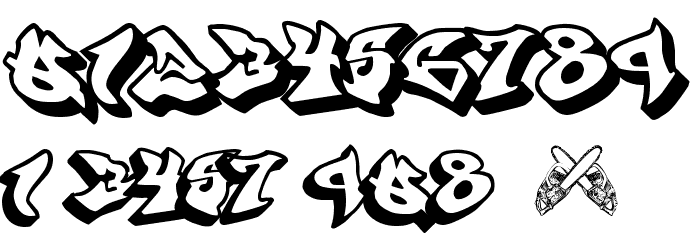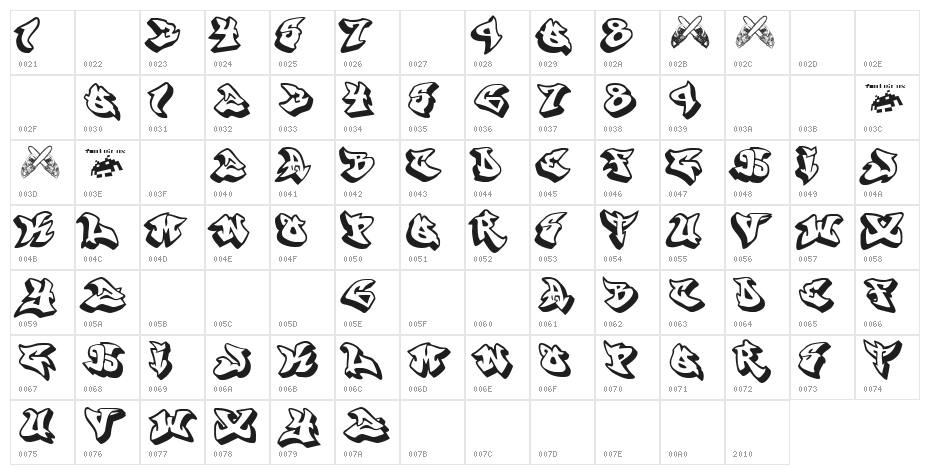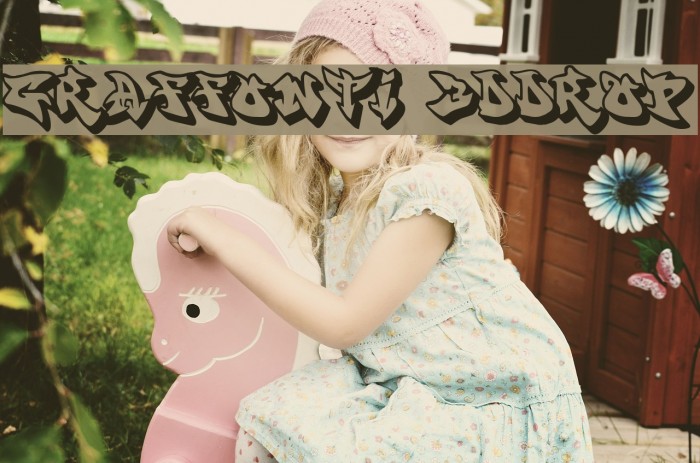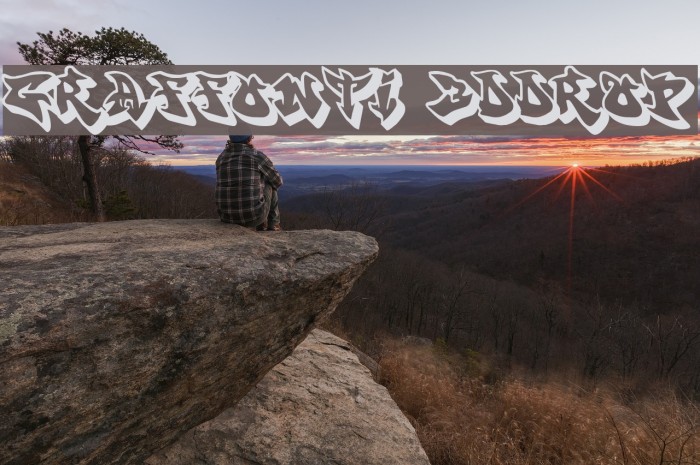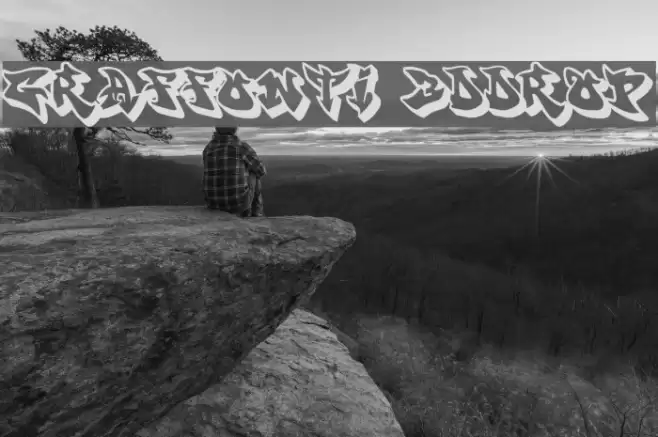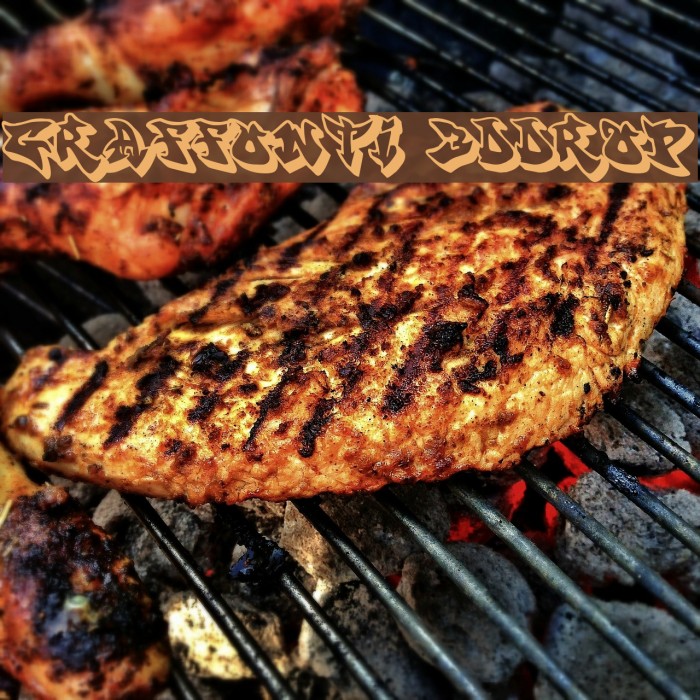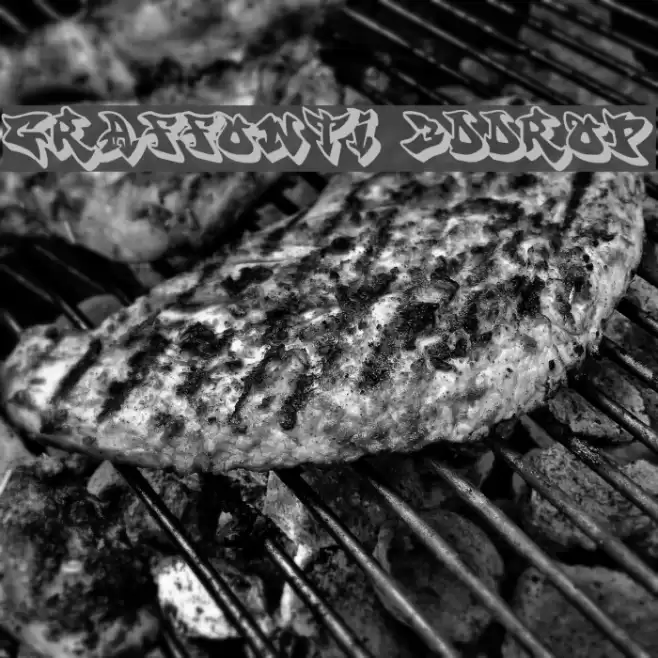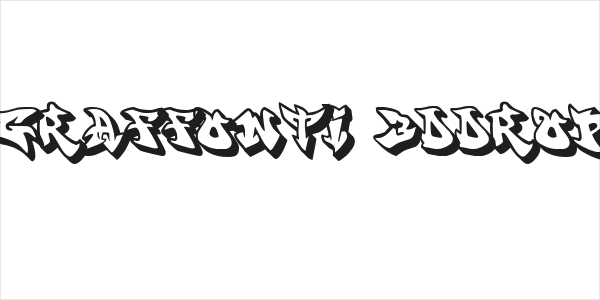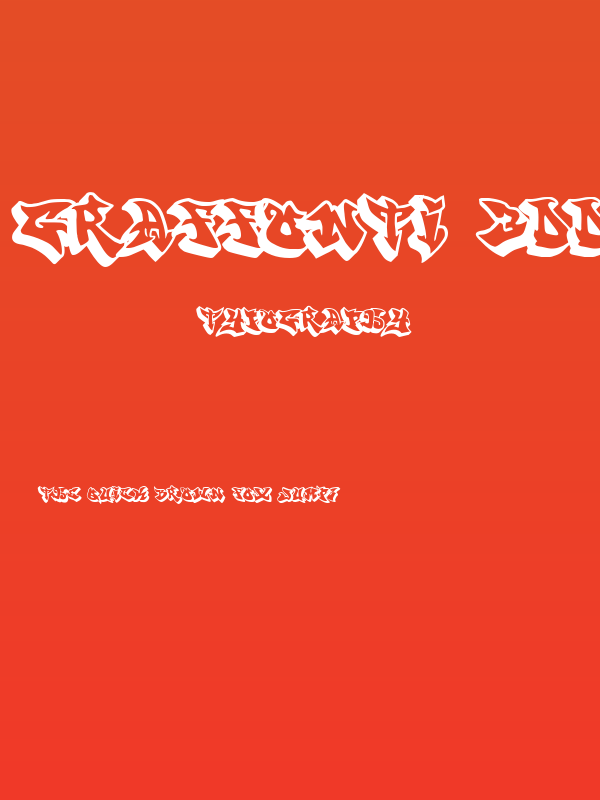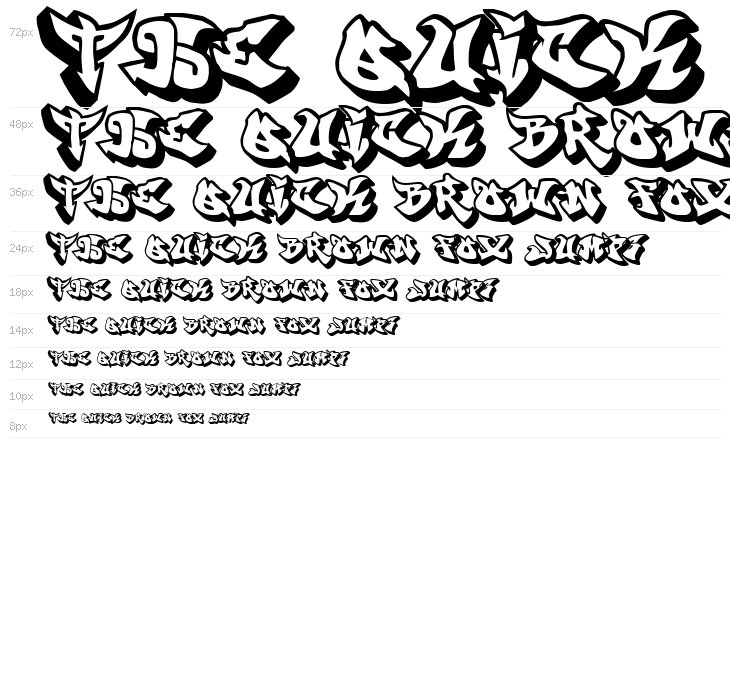
graffonti 3ddrop Font
graffonti 3ddrop Description
This font exhibits a bold, graffiti-inspired style with a three-dimensional drop shadow effect. The letters are characterized by sharp angles and dynamic curves, giving them an energetic and urban feel. The uppercase and lowercase letters maintain a consistent style, with exaggerated serifs and strokes that create a sense of movement. The numbers and special characters follow the same aesthetic, ensuring a cohesive look across all elements. The font's design is reminiscent of street art, making it ideal for projects that require a bold and edgy appearance.
| Overall Style | Urban, Energetic, Edgy |
| Proposed Projects | Ideal for street art murals, urban-themed posters, music album covers, and edgy branding projects. |